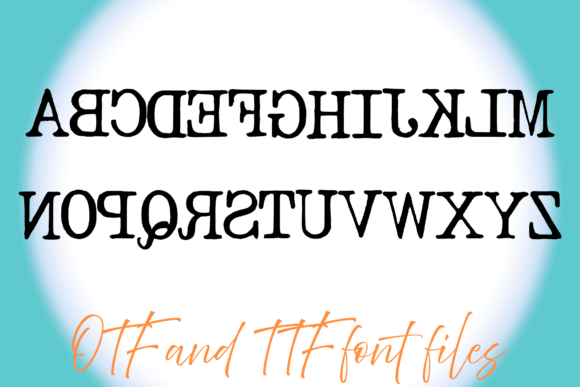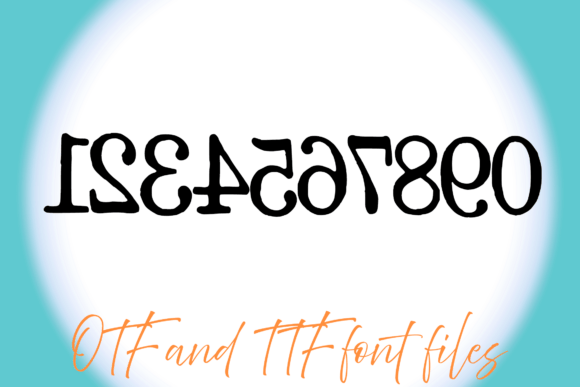
Unleashing the Power of Reverse Thinking: The Story of Backwards Typewriter Font
Have you ever stared at a blank page, trying to spark a creative idea? Maybe you were brainstorming a new project, or simply looking for a way to add some flair to your latest design. Whatever the case, the key to unlocking that eureka moment often lies in experimenting with unconventional typography – and that’s where the quirky charm of Backwards Typewriter Font comes in.
This unique font takes the classic typewriter style and turns it on its head, quite literally, by mirroring the letters and creating a reversed effect. The result is a visually striking, puzzle-like design element that’s perfect for adding an air of mystery or playfulness to your work. For designers looking to push the boundaries of their creativity, Backwards Typewriter Font offers a valuable tool for creating eye-catching posters, game elements, or even entire brand identities.
Key Features of Backwards Typewriter Font
- Font Style: A unique, stylized font that mimics the appearance of text typed on a vintage typewriter, with characters appearing to be typed in reverse.
- Character Set: Includes a wide range of characters, including uppercase and lowercase letters, numbers, punctuation marks, and special characters, making it suitable for various types of text.
- Unique Characteristics: The font’s unique appearance is achieved through the use of subtle irregularities and imperfections, giving it a nostalgic and vintage feel.
Designer Review: Backwards Typewriter Font
The Backwards Typewriter Font is a unique, hand-crafted typeface that aims to mimic the look of typing on an old-fashioned typewriter. Here’s my honest review.
- The font’s distressed, worn look is incredibly realistic, making it perfect for projects that require a vintage or retro feel.
- The character set is comprehensive, covering a wide range of languages and special characters.
- The font’s irregularities and imperfections add a touch of character and personality to text, making it feel more human.
- The font’s readability can be a concern, particularly at smaller font sizes. The irregularities and imperfections can make it difficult to discern individual characters.
- The font may not be suitable for large blocks of text, as the distressed look can become overwhelming.
The Backwards Typewriter Font is a visually striking typeface that’s perfect for projects that require a unique, vintage aesthetic. While it may have some limitations, its charm and character make it a valuable addition to any designer’s toolkit.
The Backwards Typewriter Font is ideal for creating a nostalgic or vintage look in your designs. It’s commonly used in:
- Photography captions and quotes
- Personalized gifts and mementos
Remember to pair the Backwards Typewriter Font with a clean and simple design to let the font be the focal point.